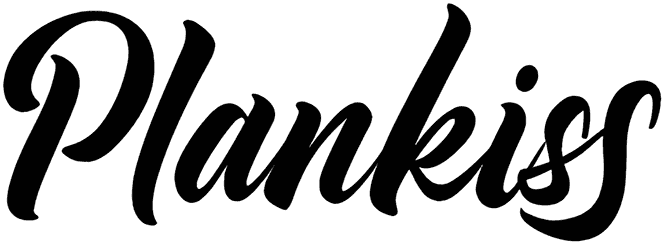
Romantic February Font
Romantic February is a magical handwritten font that is accurately designed to add a dramatic touch to artwork such as posters, gift cards, business cards, logos, and stationaries. This script font has the true potential to turn any kind of creative idea into a real piece of art.
Although it doesn’t support numbers, carrying a sense of personalization, dreaminess, royalty, and honesty would make up for it.